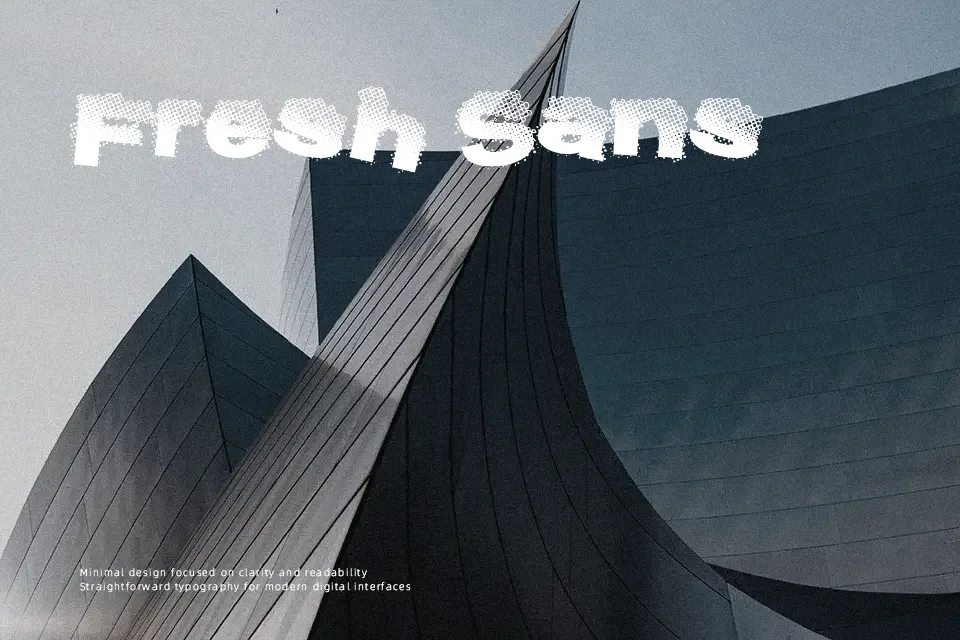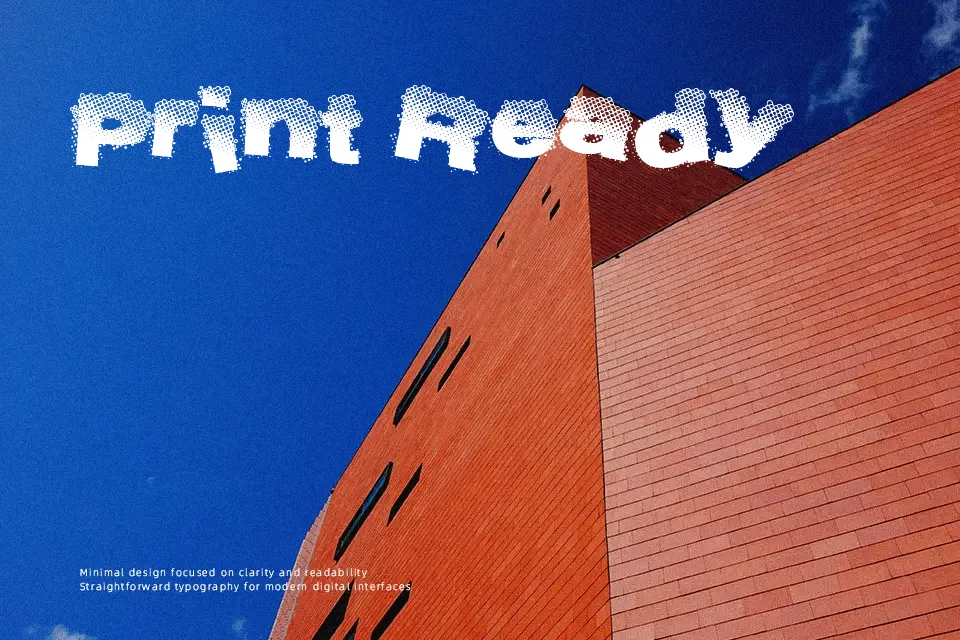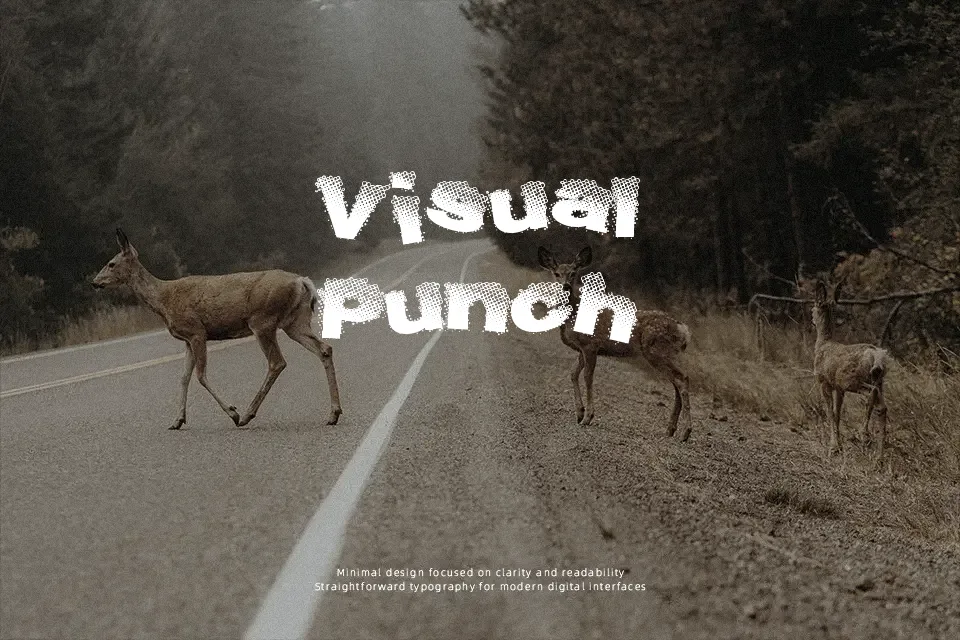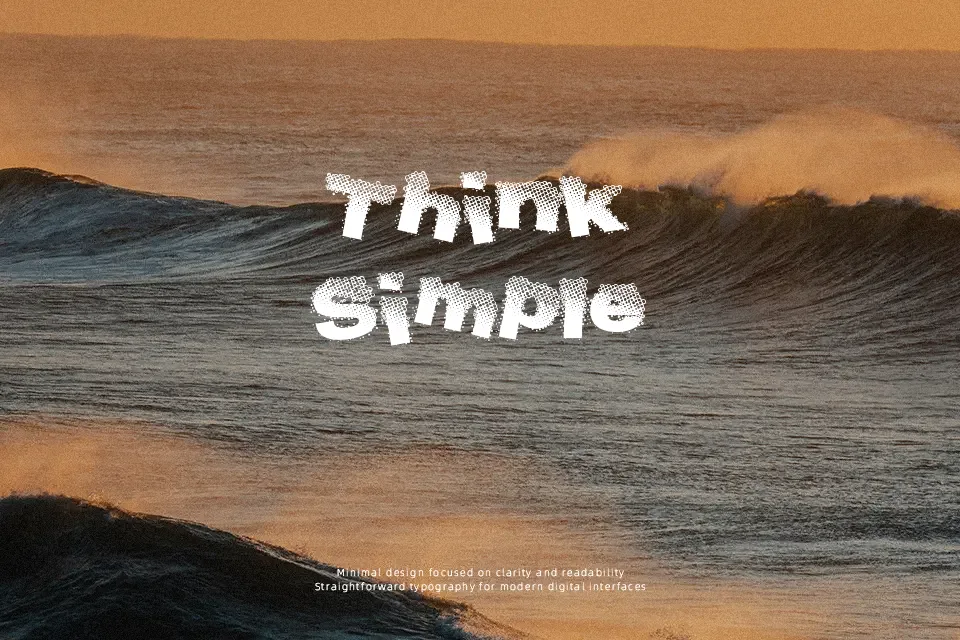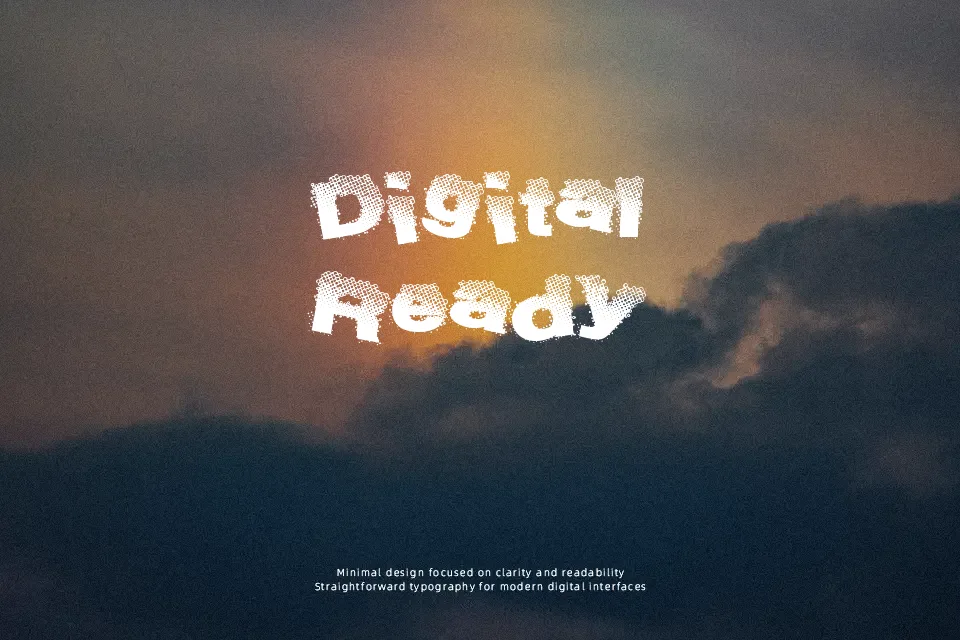
Bub Light Font
Bub Light by Xerographer Fonts is a wildly distorted display typeface that captures a chaotic, handcrafted energy. Its erratic strokes and bubbly yet grungy structure deliver a distinctly raw visual aesthetic. The unconventional letterforms create an unpredictable rhythm across the baseline, making the text feel entirely restless and alive. This rugged styling excels in projects demanding a rebellious tone, such as indie band merchandise, punk-inspired event posters, and edgy streetwear graphics. However, due to its heavy distortion and highly stylized nature, Bub Light naturally struggles in settings requiring quick readability. It is heavily disadvantaged in dense body paragraphs, corporate reports, or minimalist user interfaces where clear legibility remains the primary objective.
Indie band merchandise and album art
Edgy streetwear apparel graphics
Eye-catching grunge or punk event posters
Dense body text or long-form reading
Corporate documents and formal branding
Clean and minimalist UI design
Perfect for branding, fashion, and headline, with a artistic and decorative style.